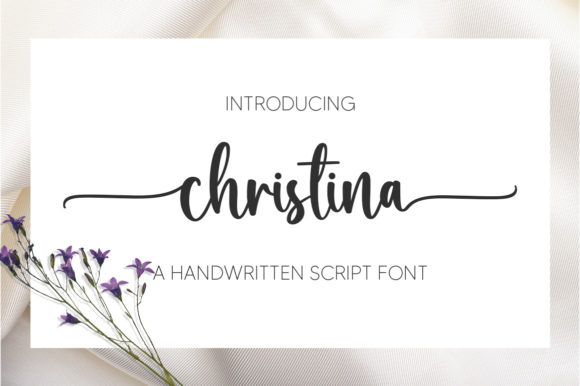
Introducing Christina, a script font that's a calligrapher's dream come true! Its delicate strokes and refined curves evoke a sense of sophistication and elegance. Whether you're creating wedding invitations, designing logos, or crafting social media posts, Christina will add a touch of class and charm to your projects.
With its stunning alternates and ligatures, Christina allows you to express your creativity and add personality to your designs. It's the perfect font for those special occasions that call for a touch of timeless beauty. Imagine your wedding invitations written in Christina's elegant script, or your logo standing out with its refined lines.
Not only is Christina aesthetically pleasing, but it's also incredibly versatile. It works beautifully for a wide range of projects, from delicate branding and packaging design to elegant invitations and social media graphics. Its PUA encoding ensures ease of use, allowing you to access all glyphs and swashes with ease.
So why settle for ordinary fonts when you can have the exquisite charm of Christina? Its delicate beauty and wide range of applications make it an essential tool for any creative professional. Elevate your designs to the next level with Christina, the font that embodies sophistication and elegance.